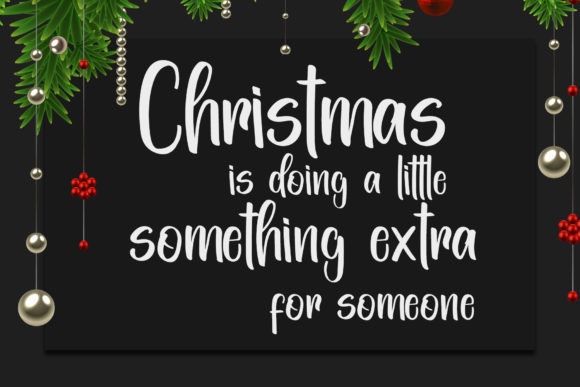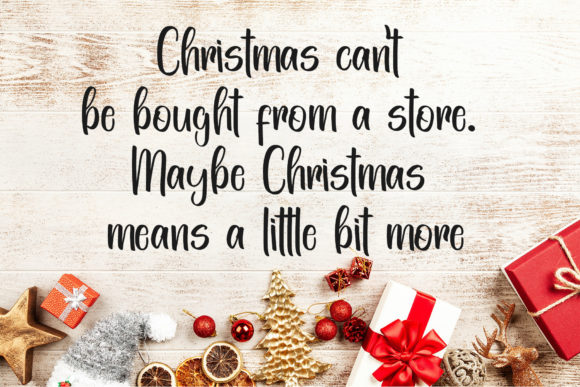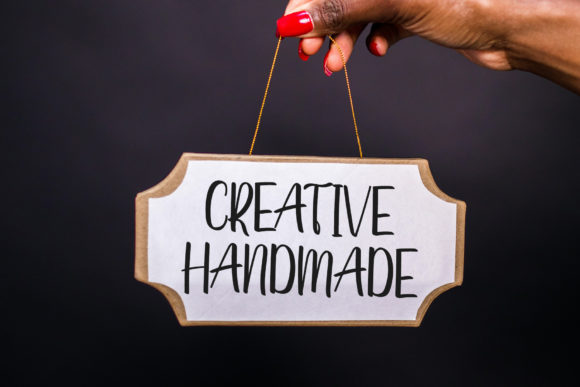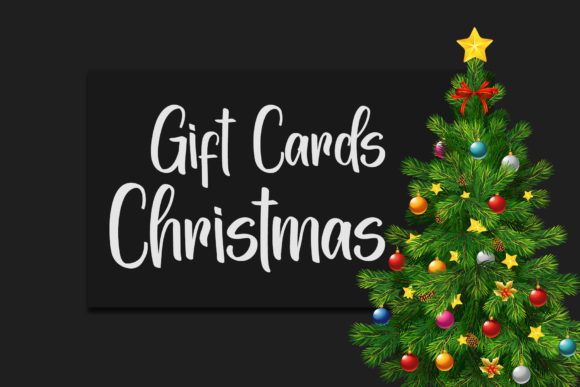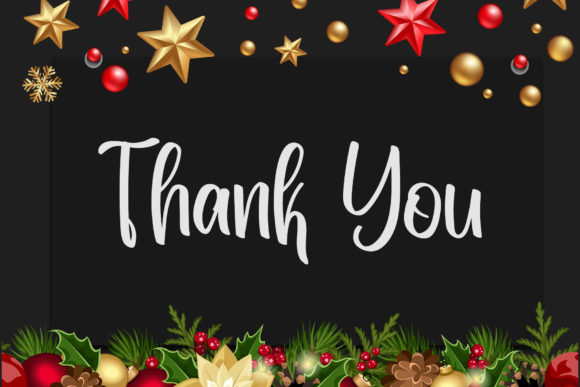
Unwrap the Magic of Christmas Surprise Font
As you sit at your desk, staring blankly at your computer screen, and the deadline for that special holiday project is looming near, you suddenly feel a spark of inspiration. You envision a festive invitation, a merry card, or a joyful social media post that will capture the essence of the season. But, what’s missing is that perfect font to bring your vision to life.
Enter the Christmas Surprise Font, a delightful script font that’s designed to add a touch of whimsy and charm to your creative endeavors. This lovely font features playful characters that seem to dance along the baseline, making your designs stand out from the crowd. With the Christmas Surprise Font, you’ll be able to add a personal touch to your projects, making them truly special and memorable.
Whether you’re a seasoned designer or a hobbyist, the Christmas Surprise Font is a valuable addition to your toolkit. Its versatility and charm make it perfect for a wide range of projects, from invitations and cards to social media posts and marketing materials. So, why not give it a try and see how it can help you create something truly magical this holiday season?
Key Features of Christmas Surprise Font
- Font Family: Christmas Surprise, a unique and festive font designed for holiday seasons.
- Unique Characteristics: Features a whimsical and playful design, with intricate details and ornaments, making it perfect for holiday-themed projects.
- Characters: Includes a wide range of characters, including uppercase and lowercase letters, numbers, and punctuation marks, as well as holiday-themed symbols and icons.
Designer Review: Christmas Surprise Font
Overall, I found the Christmas Surprise Font to be a fun and festive addition to any holiday design project. Here’s what I liked about it: ✨
- The font’s playful and whimsical feel is perfect for capturing the spirit of the holiday season.
- The font’s unique character set includes a wide range of special characters and ornaments, which can be used to add an extra layer of festivity to your designs.
- The font is highly customizable, with options for adjusting font size, color, and style to suit your design needs.
However, I did encounter a few limitations: ⚠️
- The font may not be suitable for all types of designs, particularly those that require a more serious or formal tone.
- The font’s character set is not as extensive as some other fonts, which may limit its use in certain situations.
- The font’s customizability, while a strength, can also be a weakness if not used carefully, as it can lead to designs that look cluttered or overwhelming.
Overall, I would recommend the Christmas Surprise Font to designers looking for a fun and festive font to add to their holiday projects. Just be mindful of its limitations and use it judiciously to achieve the best results.
For the most out of the Christmas Surprise font, use it for:
- Holiday-themed graphics and social media posts
- Christmas party invitations and decorations
- Gift tags and wrapping paper